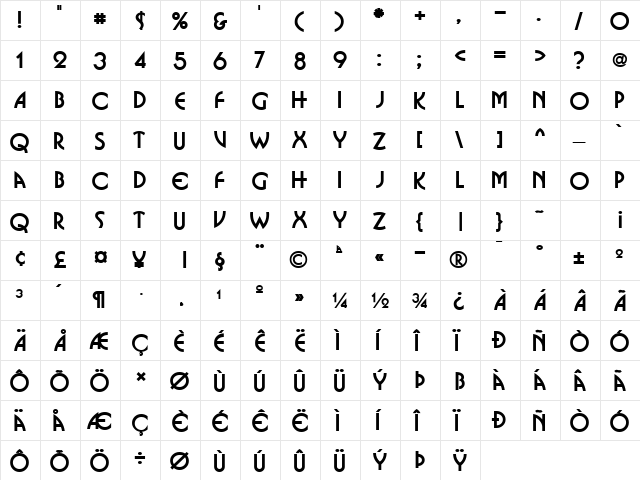
Busso Bold
Design Context for Busso Typeface
Busso is a composed and adaptable typeface that performs quietly and consistently across a wide range of design contexts. The heavy weight commands attention and anchors typographic hierarchies.